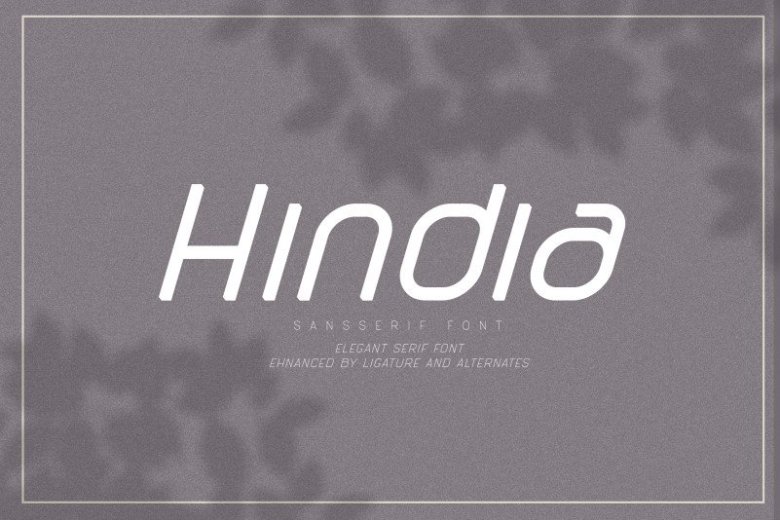
Hindia Sans Serif Font
Hindia Sans Serif Font is a modern monoline sans with an adventurous mood. It is inspired by, well: the nostalgia of summer camp, in the woods and near the lake, a warm laugh with best friends, and unlimited stars in the clear night sky.
Hindia Sans Serif Font turns out nostalgia just in time for summer, and brings a dynamic and vivacious vibe with three different styles to choose from.